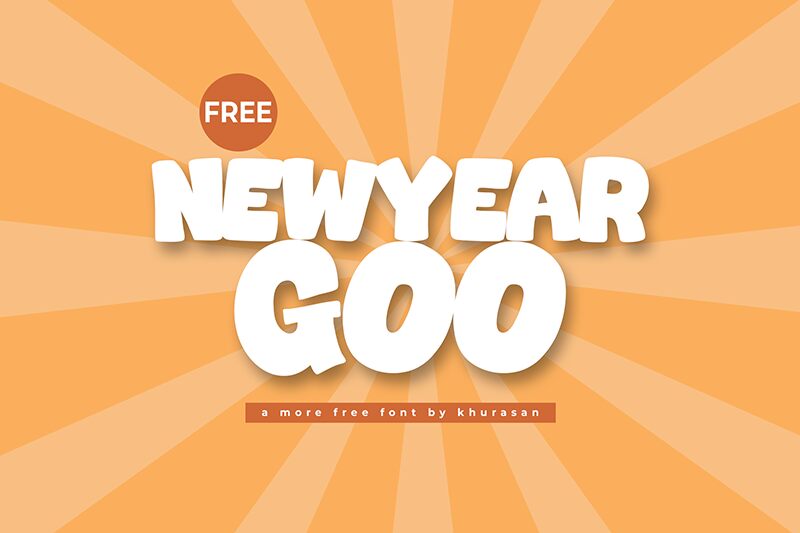
Newyear Goo
Newyear Goo font by Khurasan is a cartoon bold typeface that spells trick-or-treat in every letter. The display font, distinctive with its outline elements, displays a fun aesthetic and cheerful personality suitable for children’s projects. The letters are round except for the sharp extended edges that resemble cut-out papers.
Every occasion deserves a special font, so use this free one for retro posters, greeting cards, tickets, T-shirts, buttons, postcards for Halloween and similarly fun celebrations. Its cartoonish look can also be beneficial for comic book covers along with other kids’ artwork both print and digital.